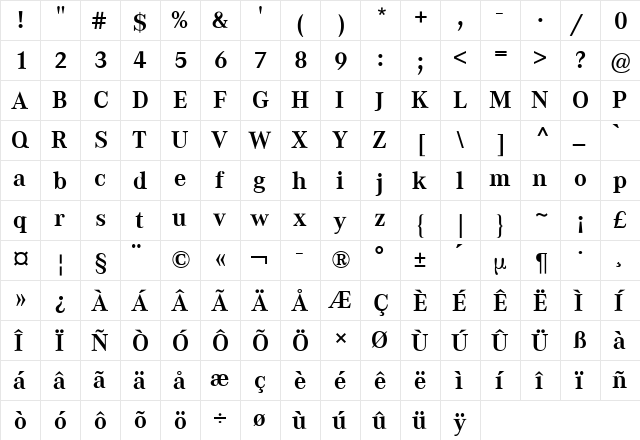
Corporate A BQ Bold Font Preview
Corporate A BQ Bold
Corporate A BQ Bold Font Details
Design Context for Corporate A BQ Typeface
Corporate A BQ offers clean, dependable letterforms without strong stylistic allegiance, making it a practical choice for designers who need flexibility. Its bold stroke weight gives it real presence on the page.